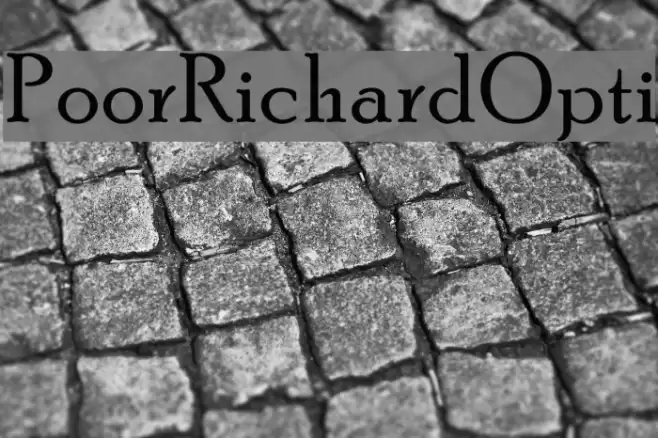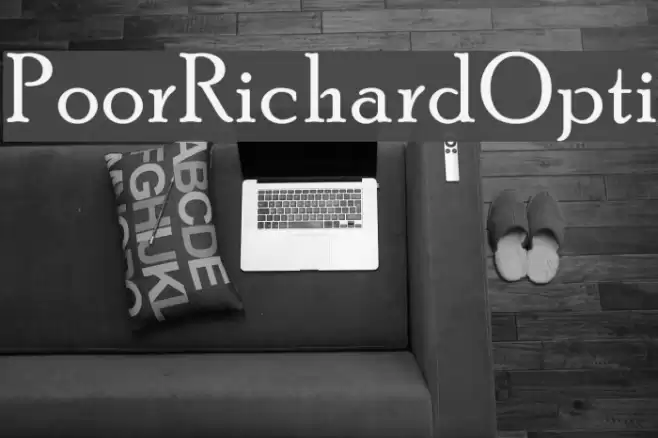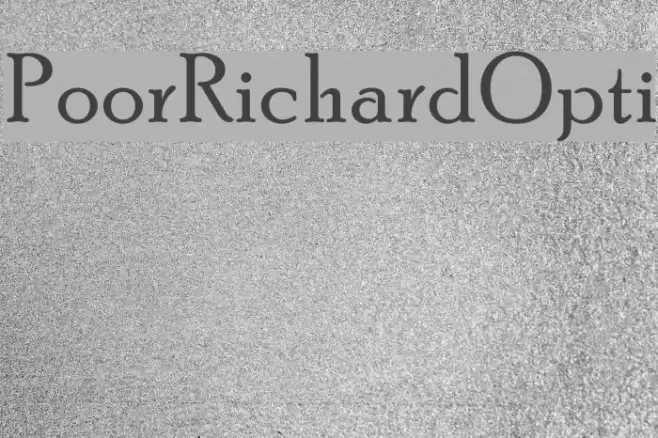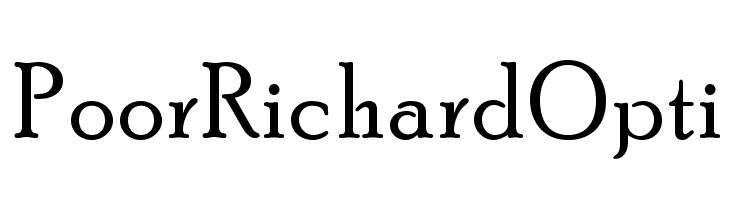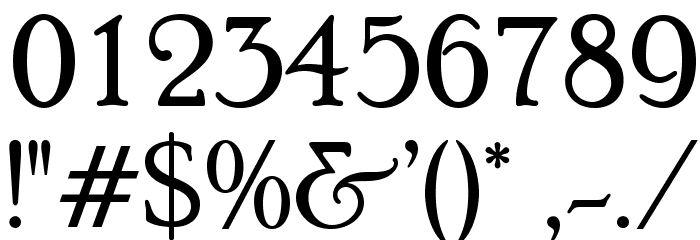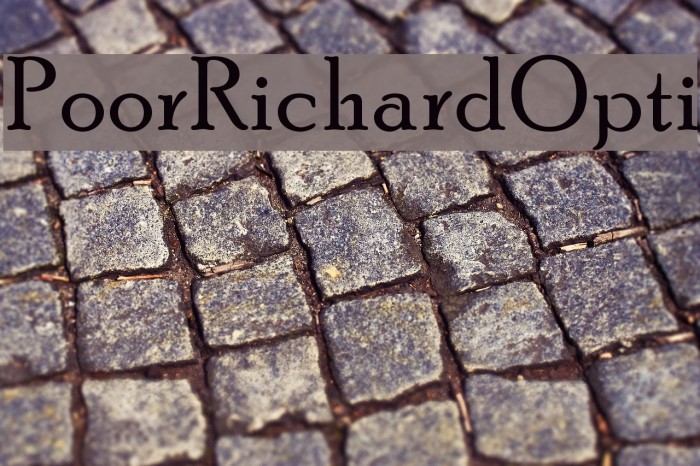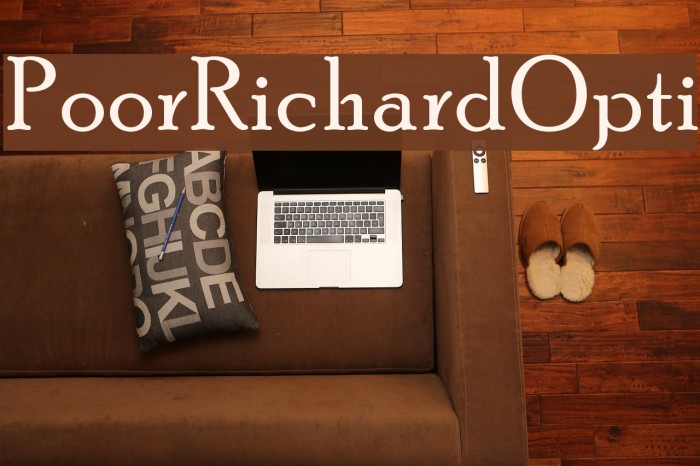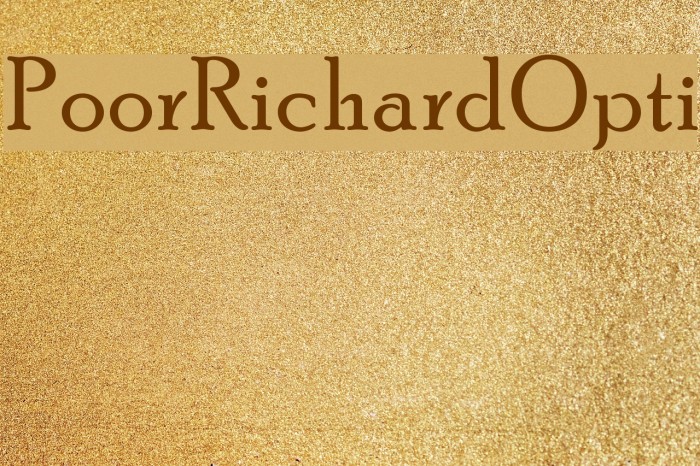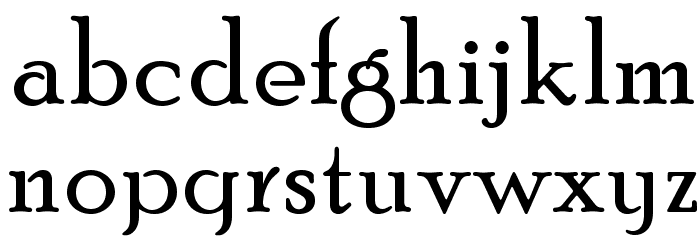
PoorRichardOpti Font
PoorRichardOpti Description
This font exudes a classic and timeless elegance with its serif style, characterized by slightly curved and tapered strokes. The uppercase letters are bold and commanding, while the lowercase letters maintain a consistent flow with a touch of sophistication. The numerals are well-proportioned, ensuring readability, and the special characters are distinct yet harmonious with the overall design. This font's balanced weight and moderate contrast in stroke thickness make it versatile for various applications.
A classic serif font with elegant curves and moderate contrast from Uncategorized fonts.
- Proposed Projects: Ideal for book titles, formal invitations, branding materials, and editorial design.
- Overall Style: Classic